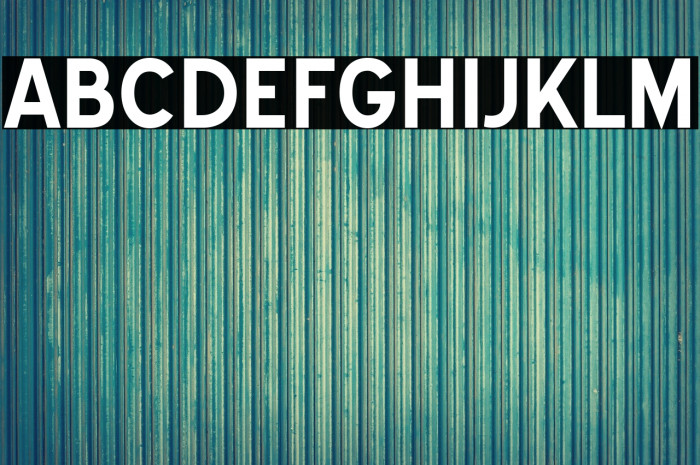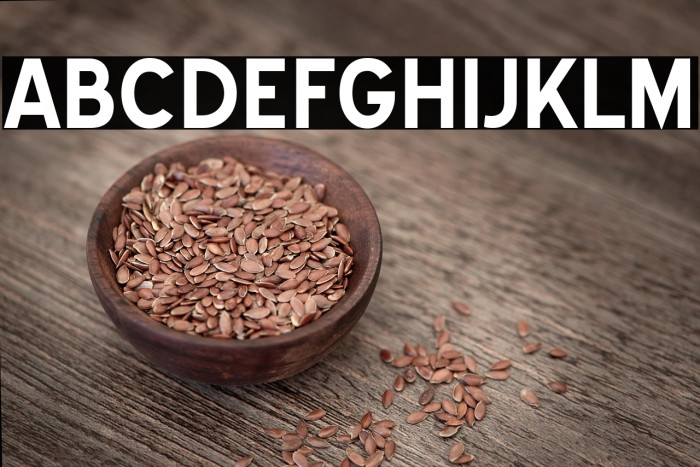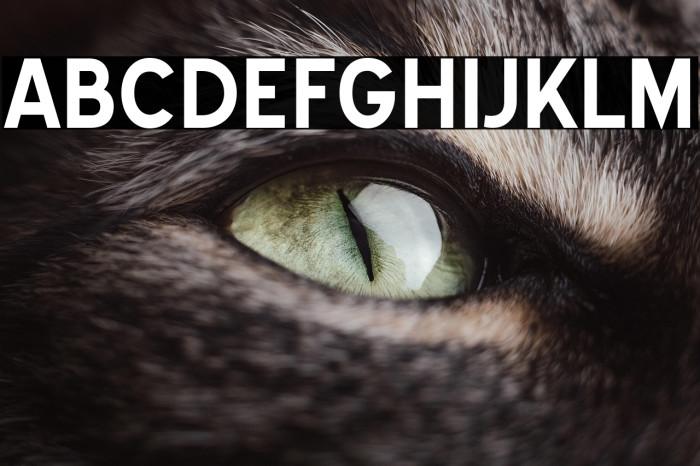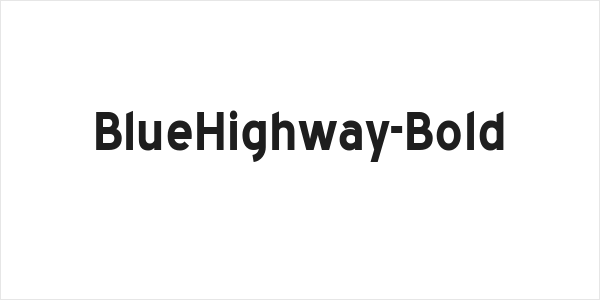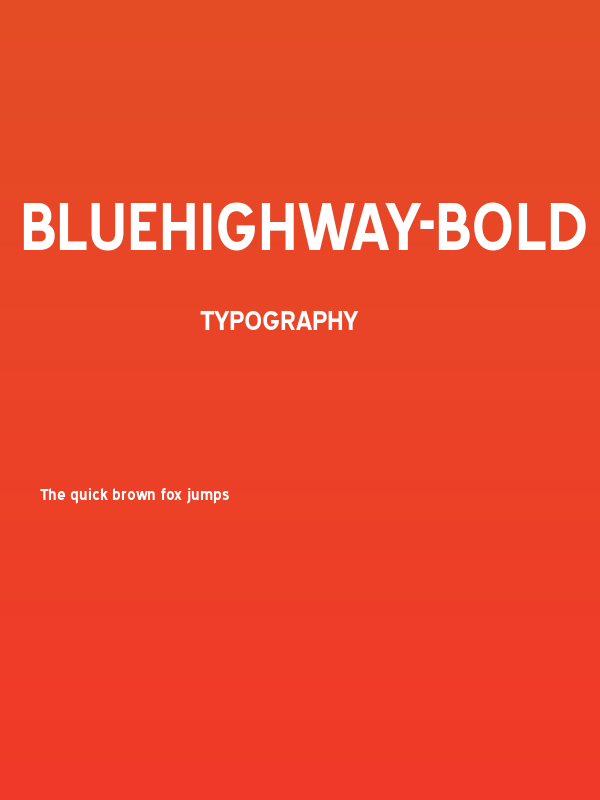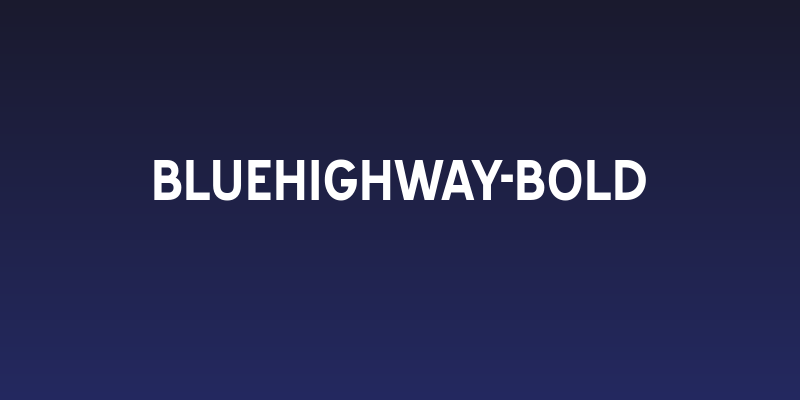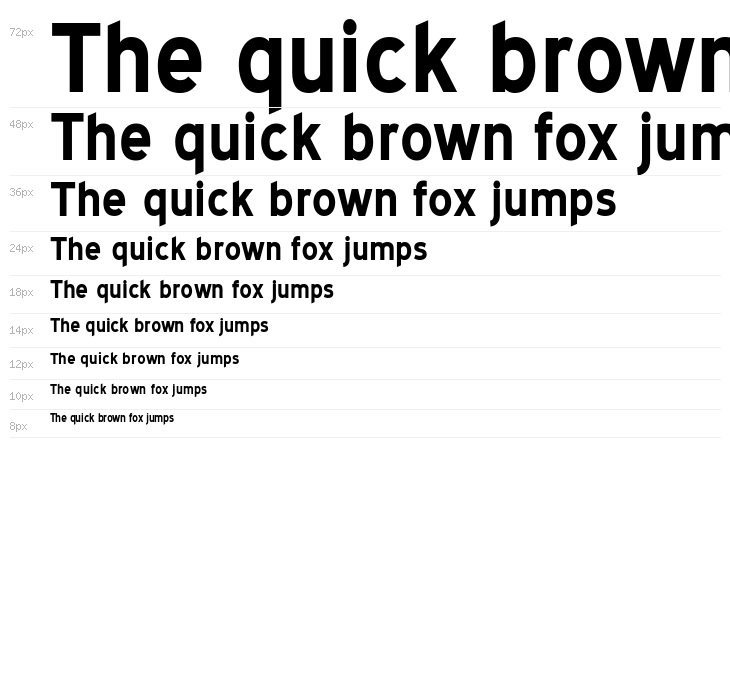
BlueHighway-Bold Font
BlueHighway-Bold Description
This font features a bold and modern sans-serif style, characterized by its clean and straightforward lines. The uppercase and lowercase letters are well-proportioned, with a consistent stroke width that provides a strong visual impact. The numerals are clear and easily distinguishable, making them suitable for various applications. The special characters are designed with the same boldness, ensuring uniformity across all glyphs. This font's simplicity and clarity make it highly versatile for both digital and print media.
| Use Case | Headlines, Logos, Signage |
| Proposed Projects | Ideal for branding, signage, headlines, and digital interfaces where clarity and impact are essential. |